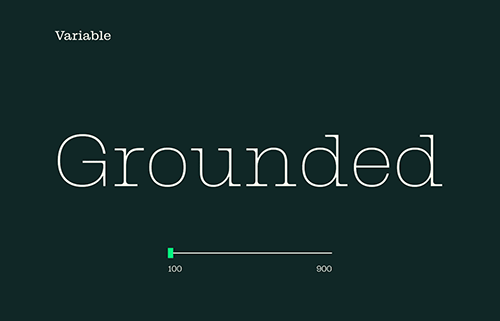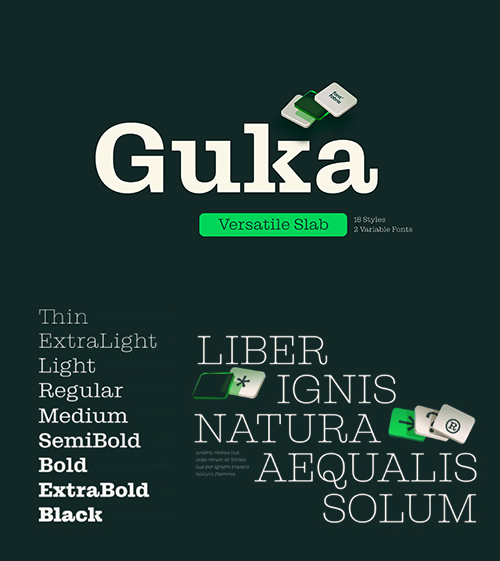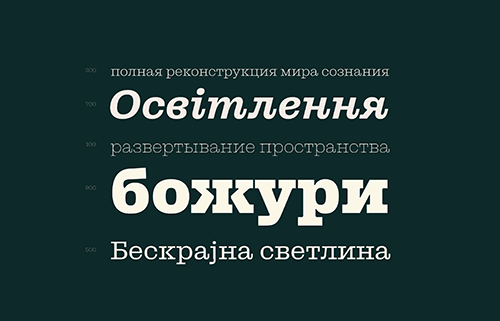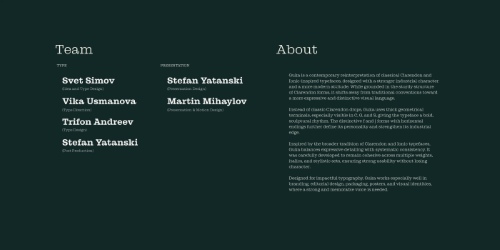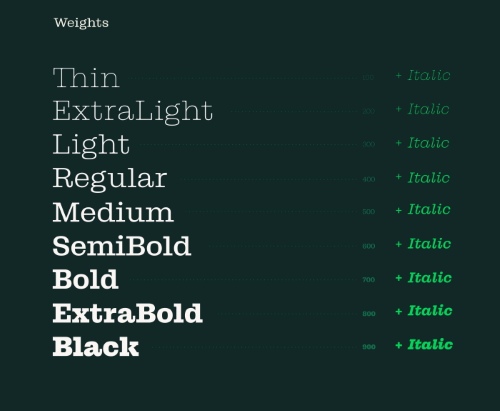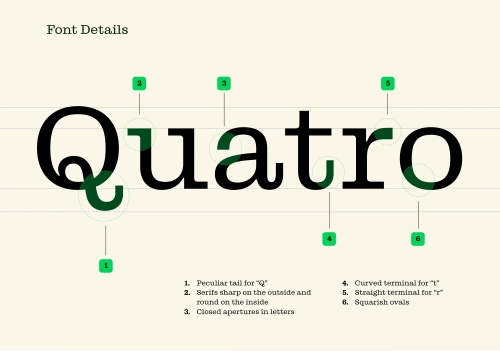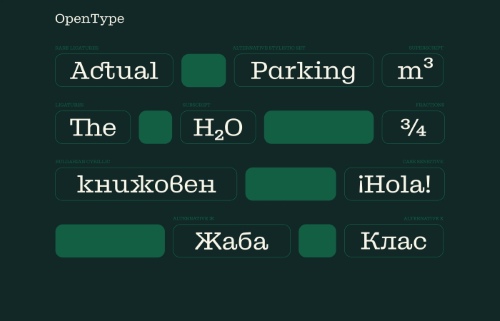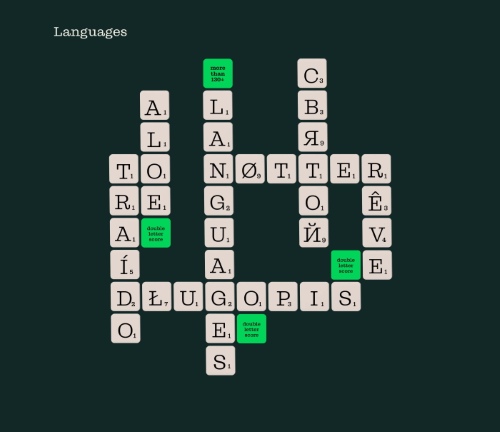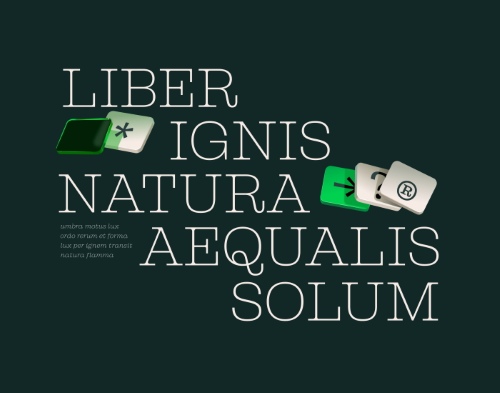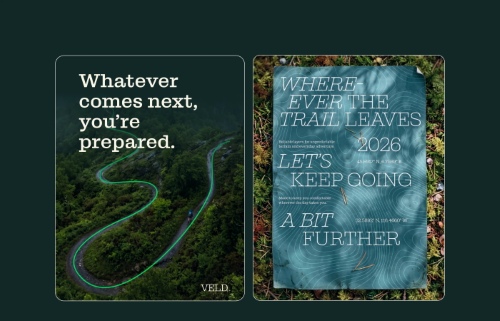
GUKA Versatile Slab - 18 Static Styles + 2 Variable Fonts NEW!
GUKA Versatile Slab - 18 Static Styles
+ 2 Variable Fonts NEW!
• Guka is a contemporary reinterpretation of classical Clarendon and Ionic-inspired typefaces, designed with a stronger industrial character and a more modern attitude. While grounded in the sturdy structure of Clarendon forms, it shifts away from traditional conventions toward a more expressive and distinctive visual language. Instead of classic Clarendon drops, Guka uses thick geometrical terminals, especially visible in C, G, and S, giving the typeface a bold, sculptural rhythm. The distinctive f and j forms with horizontal endings further define its personality and strengthen its industrial edge.
• Inspired by the broader tradition of Clarendon and Ionic typefaces, Guka balances expressive detailing with systematic consistency. It was carefully developed to remain cohesive across multiple weights, italics, and stylistic sets, ensuring strong usability without losing character.Designed for impactful typography, Guka works especially well in branding, editorial design, packaging, posters, and visual identities, where a strong and memorable voice is needed.
• Guka is a contemporary slab serif typeface designed for branding, editorial, packaging, posters, and visual identity systems. Its geometrical terminals and industrial character details give it a strong, recognizable voice that stands out in both display and system-driven environments.
The Guka Font Family is a well-balanced collection of 18 styles, including
1. Thin
2. Thin Italic
3. ExtraLight
4. ExtraLight Italic
5. Light
6. Light Italic
7. Regular
8. Regular Italic
9. Medium
10. Medium Italic
11. SemiBold
12. SemiBold Italic
13. Bold
14. Bold Italic
15. ExtraBold
16. ExtraBold Italic
17. Black
18. Black Italic
• Extended multilingual support
• Stylistic sets
• Alternates
• Ligatures
• Localized forms
• Case-sensitive forms